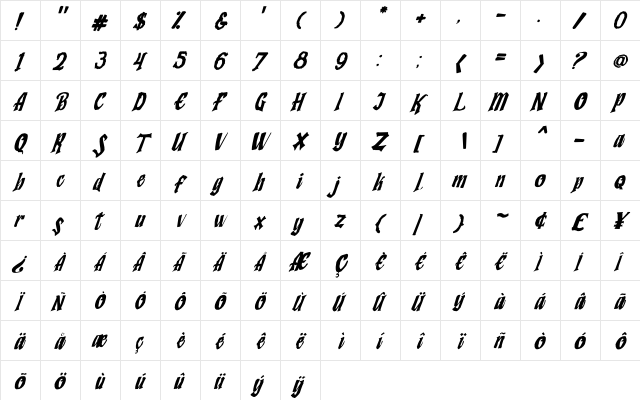
Humingson Rough Italic Italic
Design Context for Humingson Rough Italic Typeface
Humingson Rough Italic embraces imperfection — its rough, textured character adds raw authenticity to designs that want to feel lived-in and unconventional. Its italic angle brings a sense of urgency and motion to the letterforms.
Suited to punk-influenced zines, underground music branding, streetwear, and raw, anti-corporate design.
Pro Tip: Pair Humingson Rough Italic with intentionally raw or lo-fi design elements. Fighting against it with overly polished surroundings will undermine its personality.